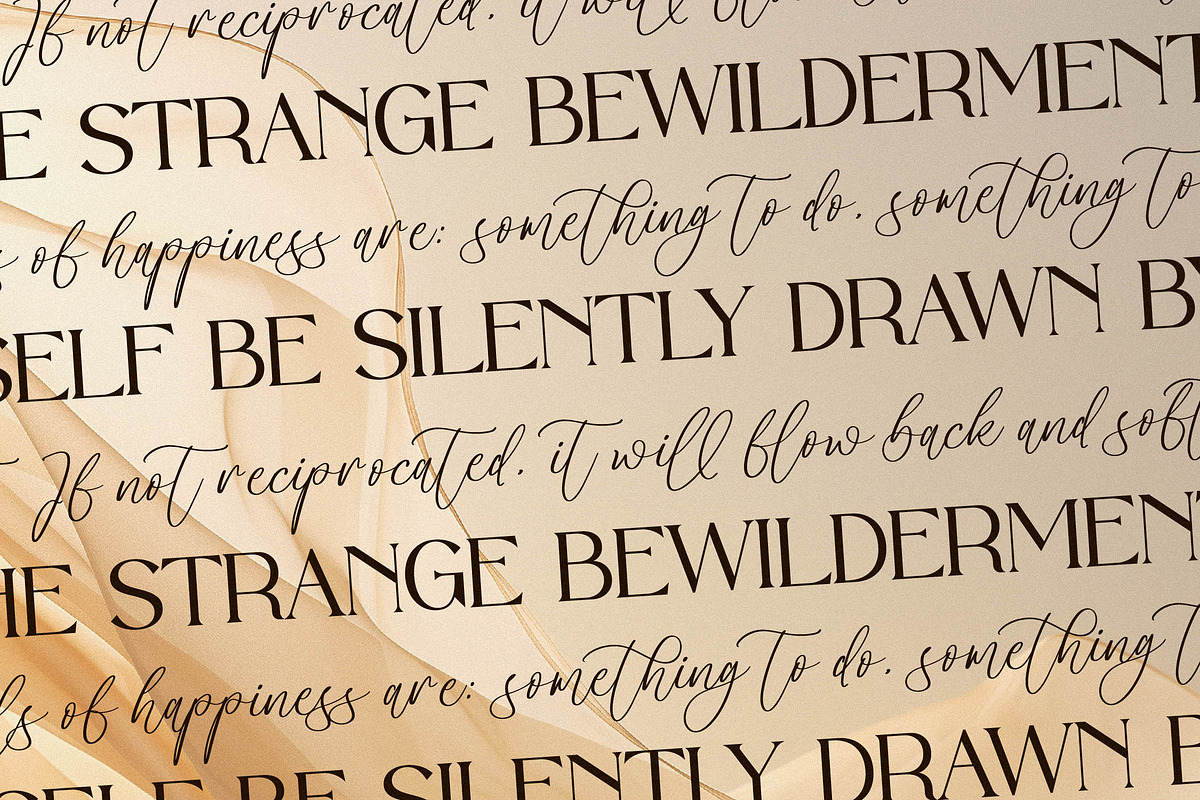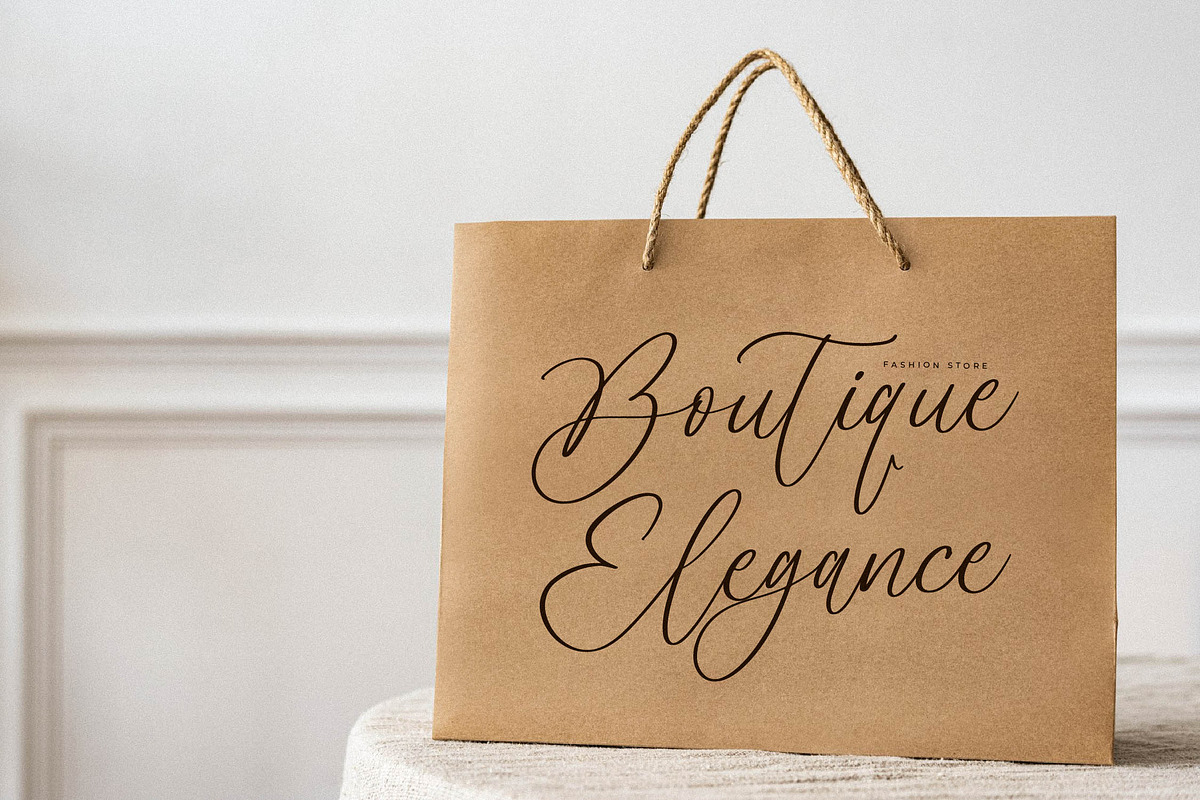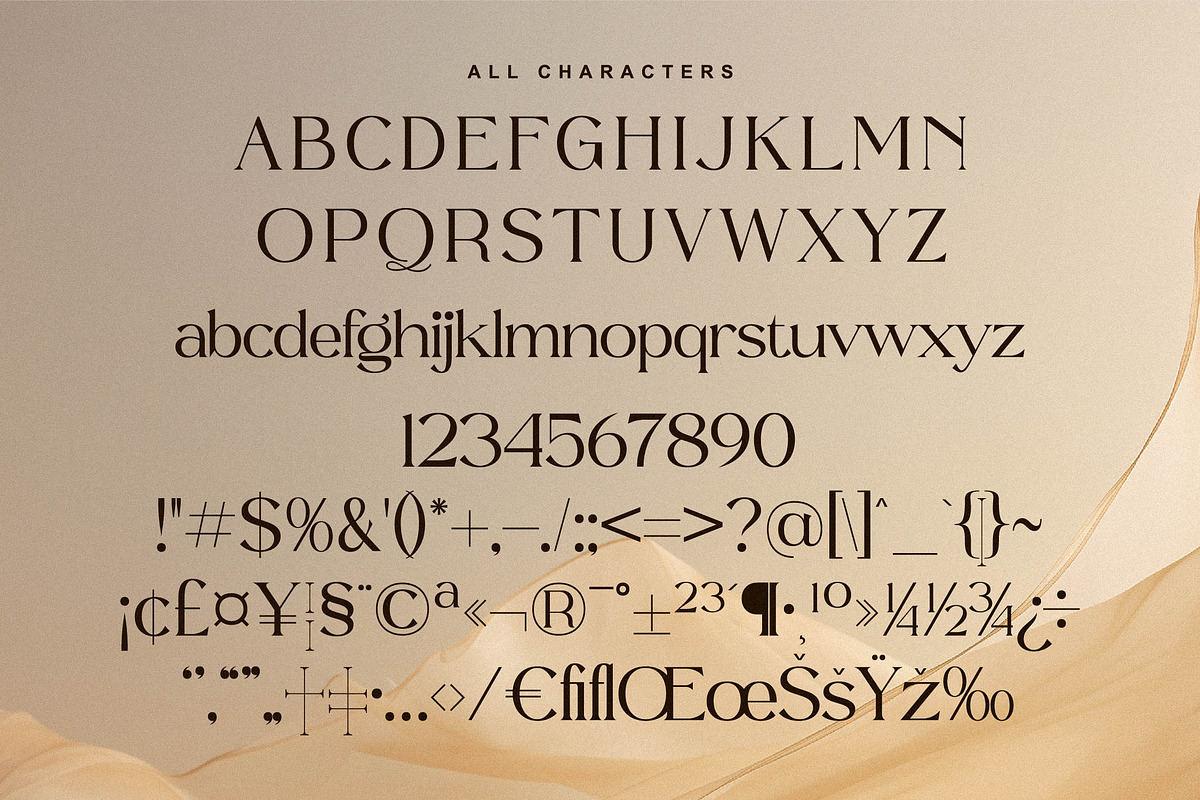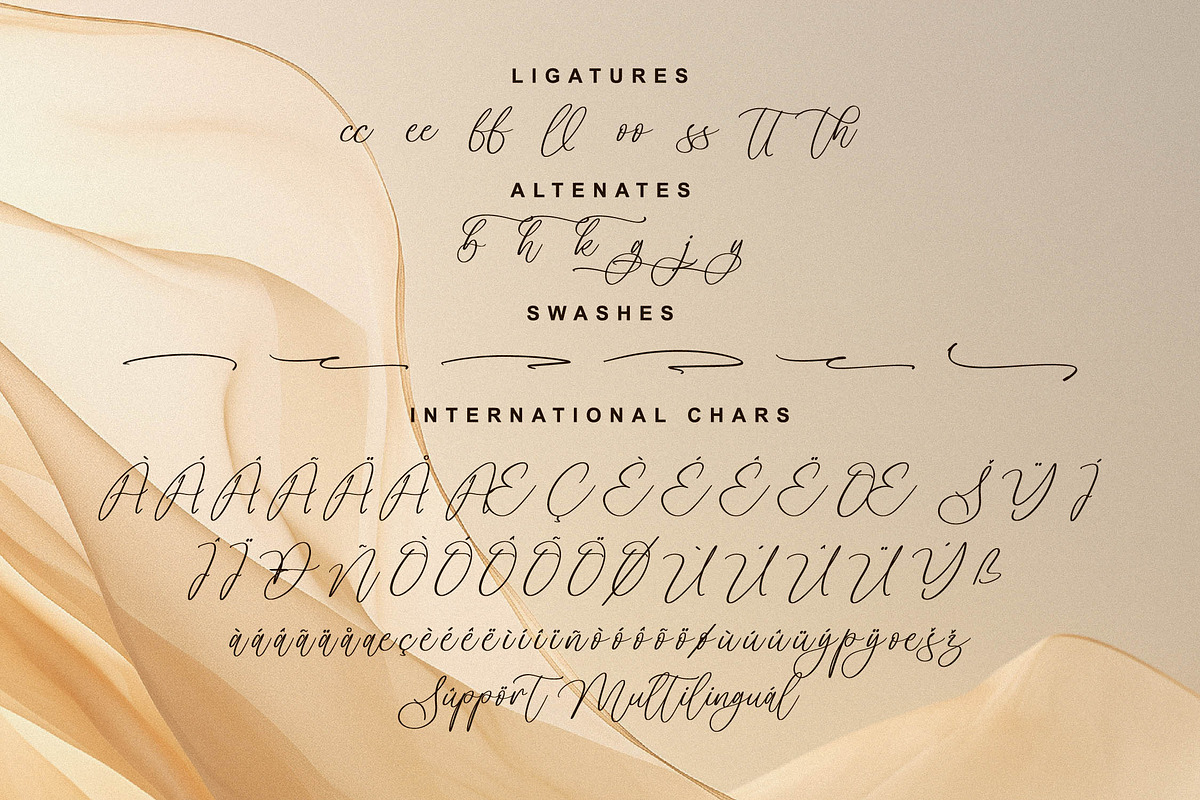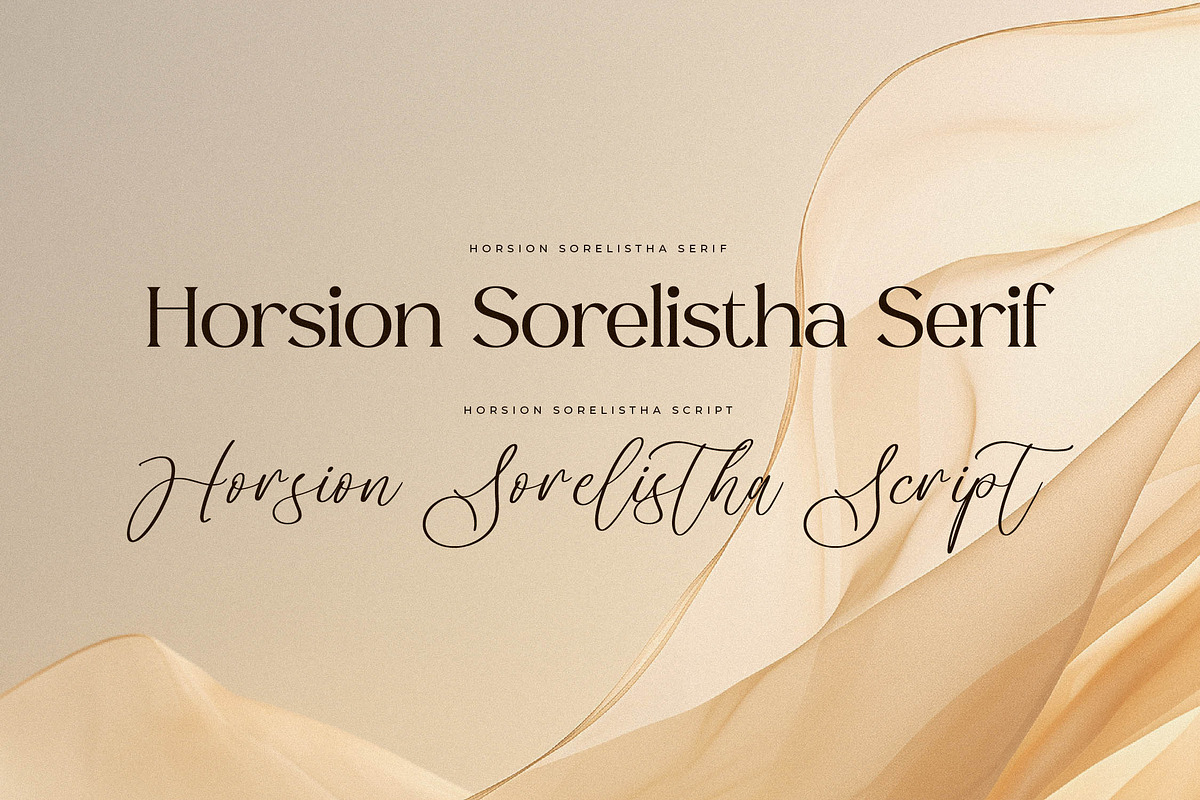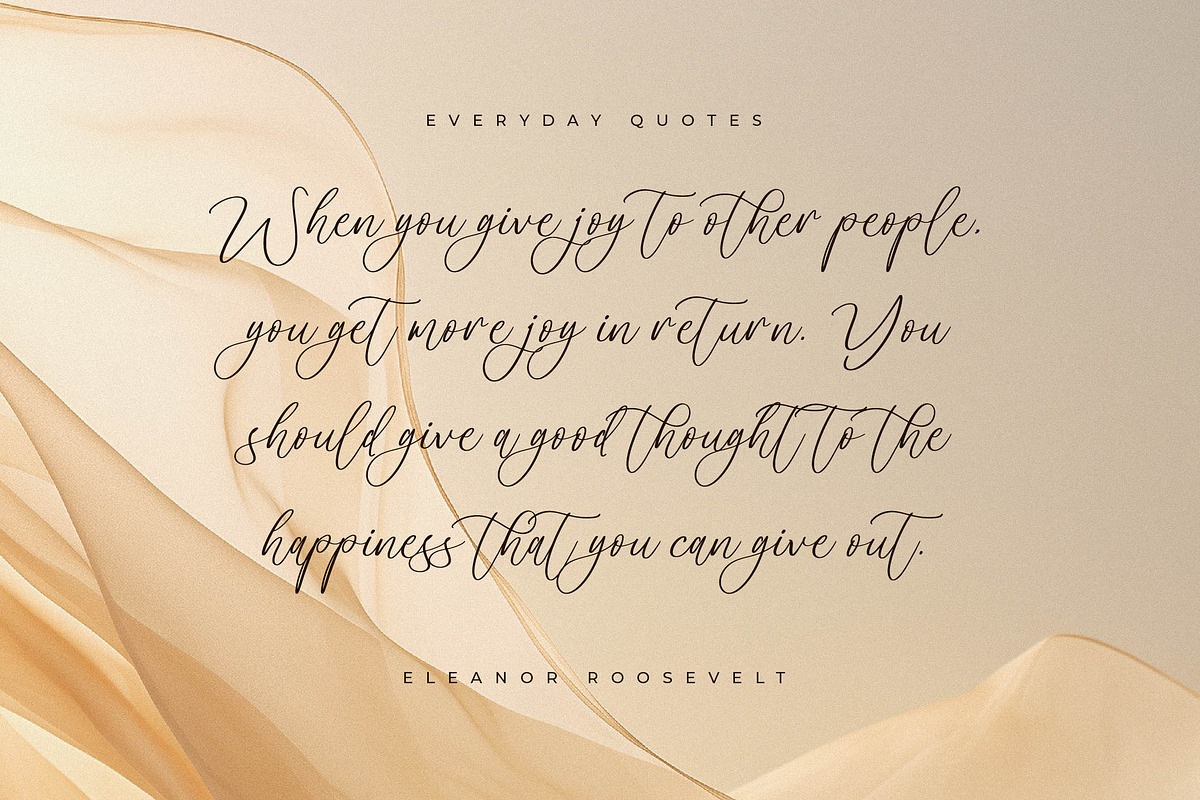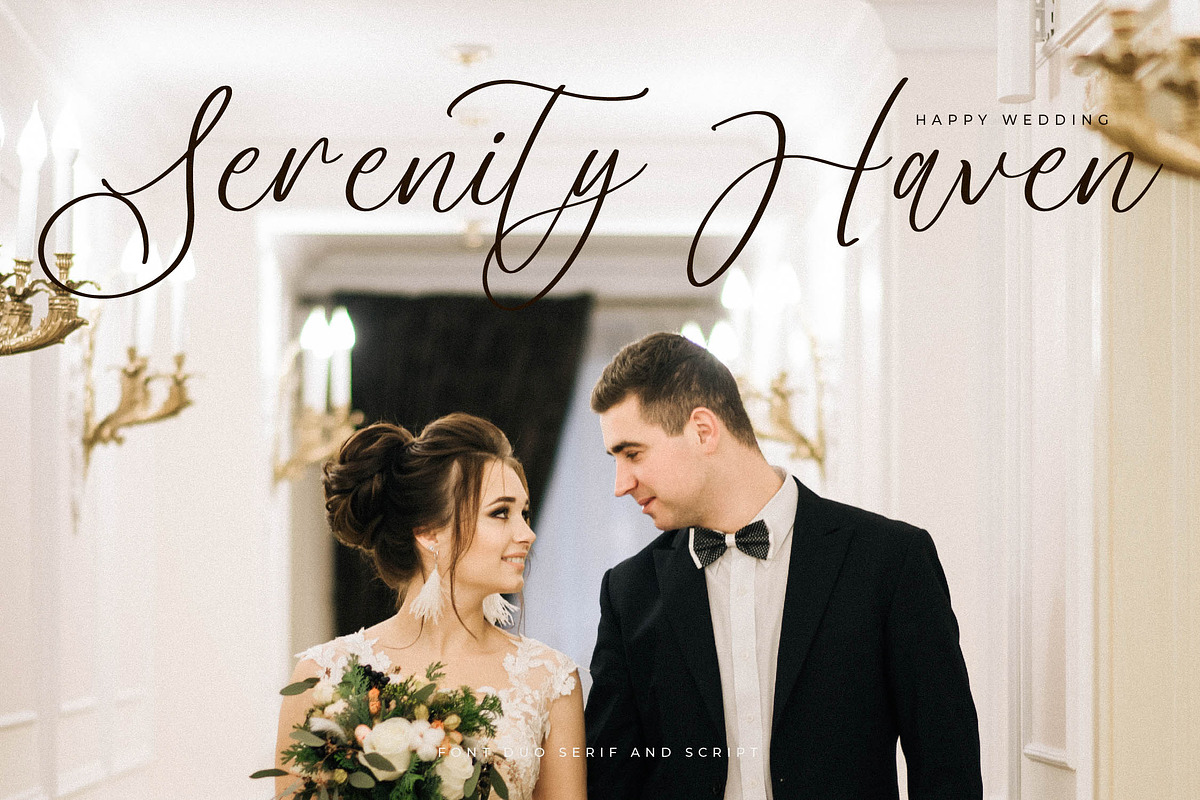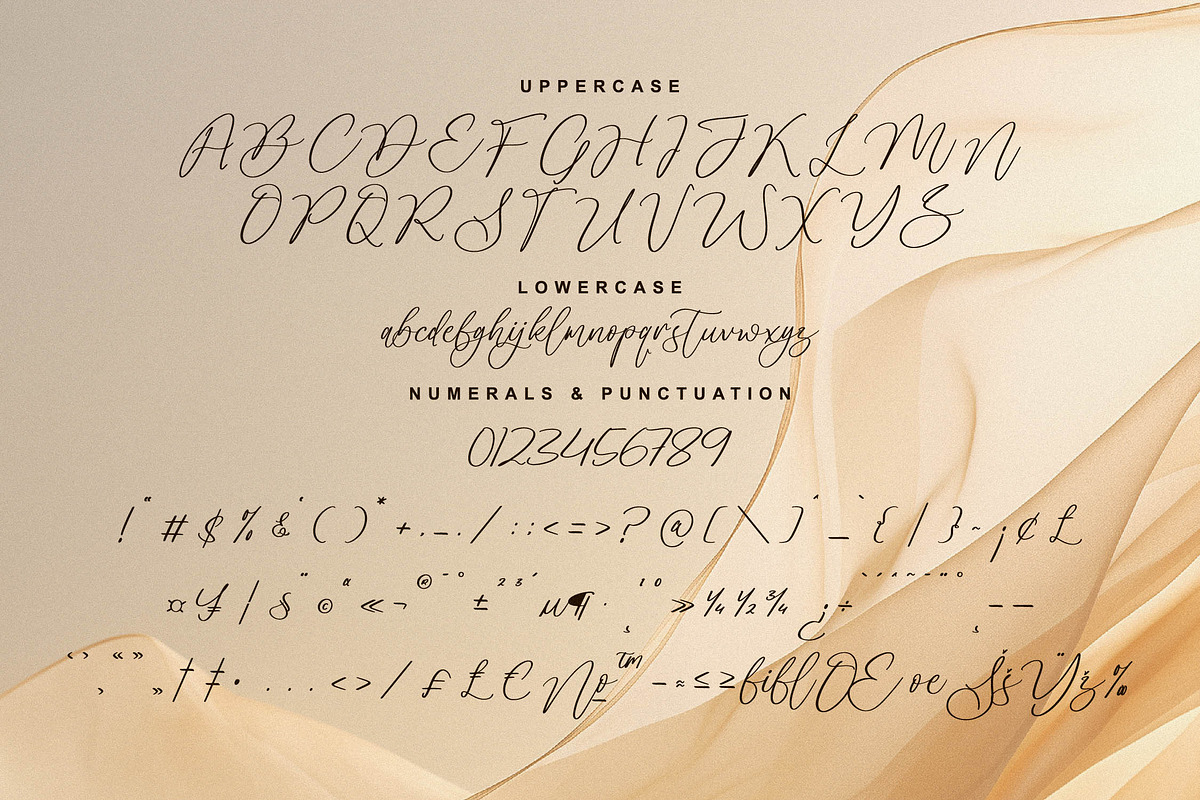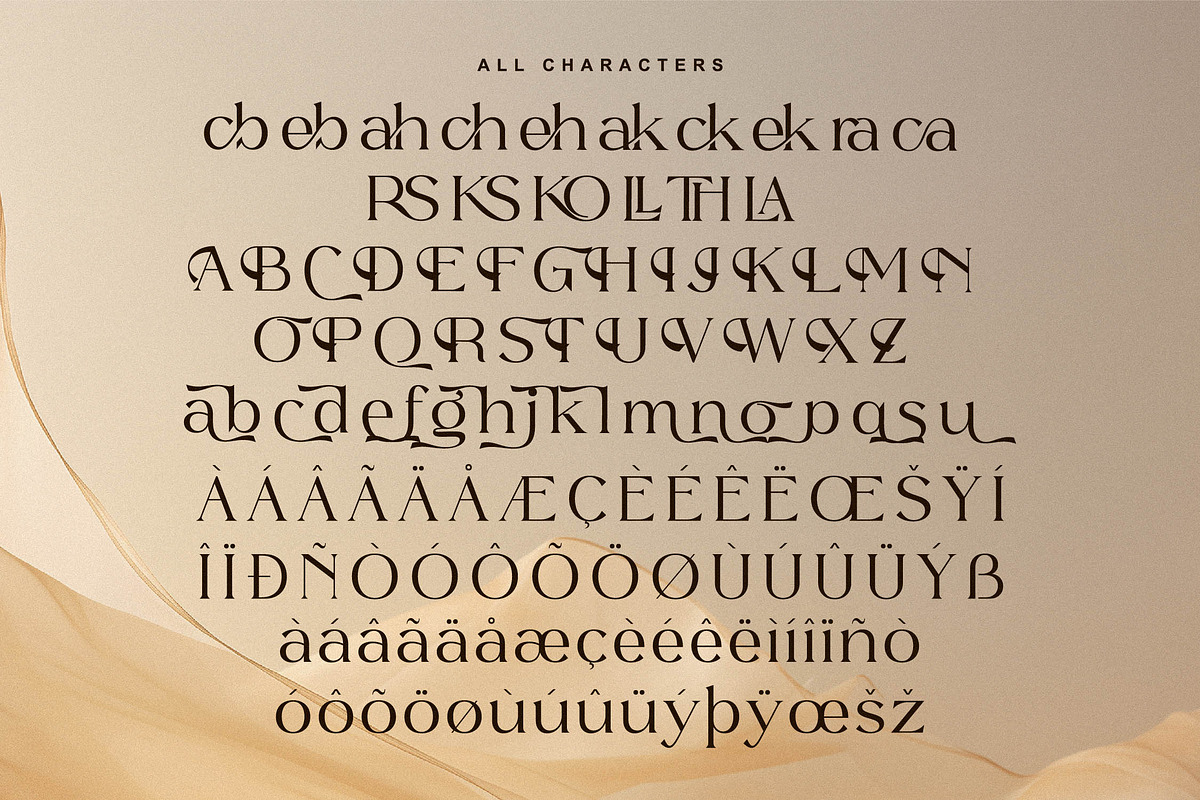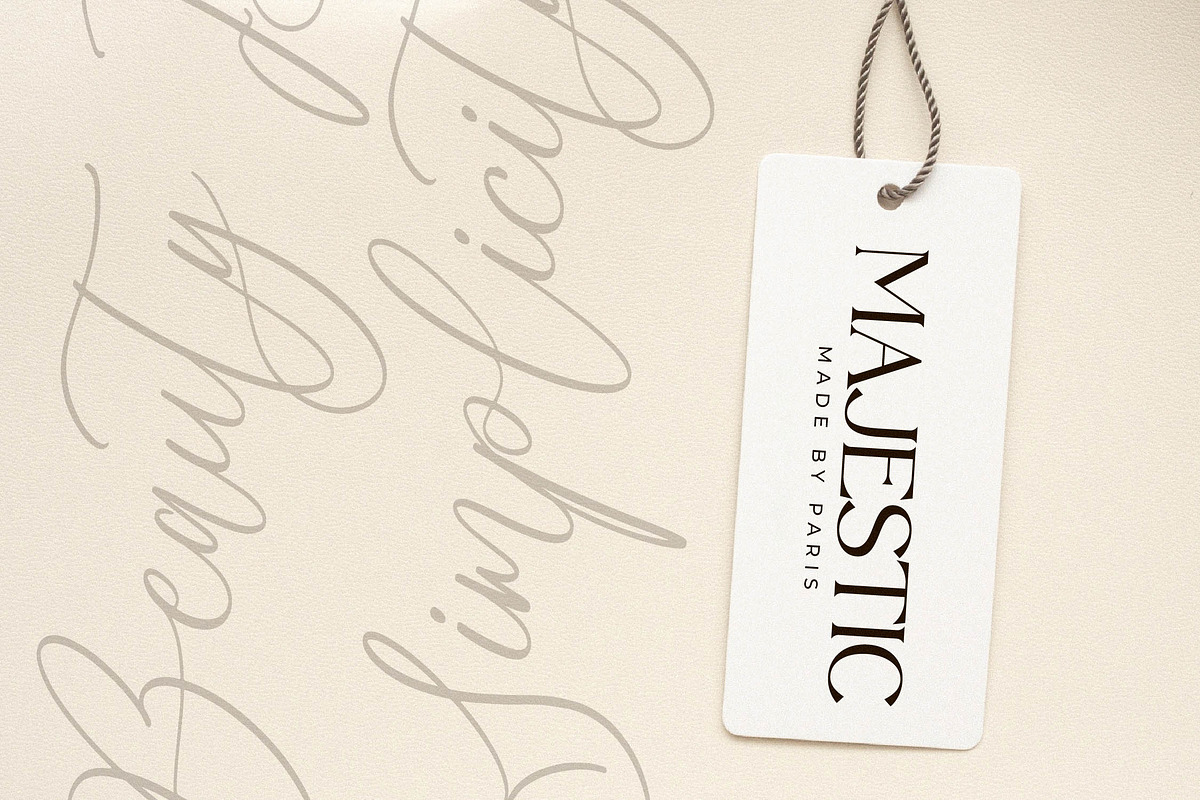
Horsion Sorelistha Font Duo
Proudly present Horsion Sorelistha Font Duo , created by Storytype, A serif and script typeface that has own unique style & modern look. This typeface is perfect for an elegant & luxury logo, book or movie title design, fashion brand, magazine, clothes, lettering, quotes, and so much more.